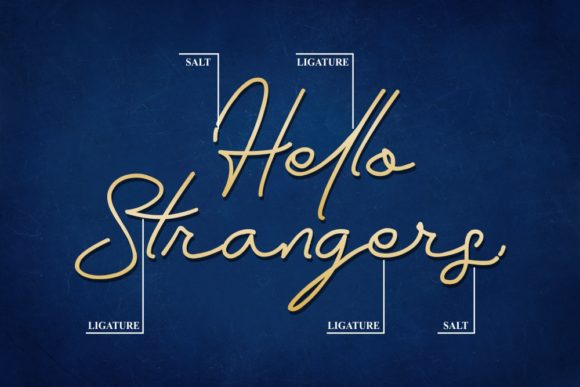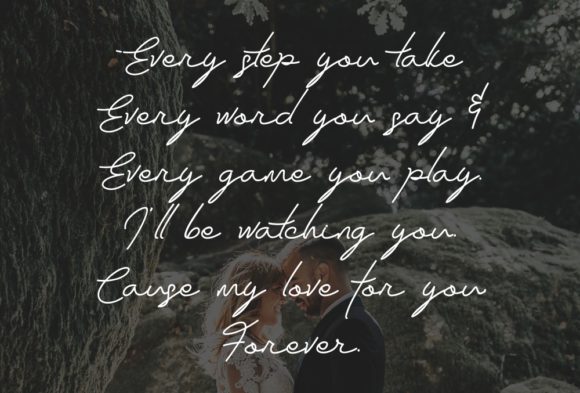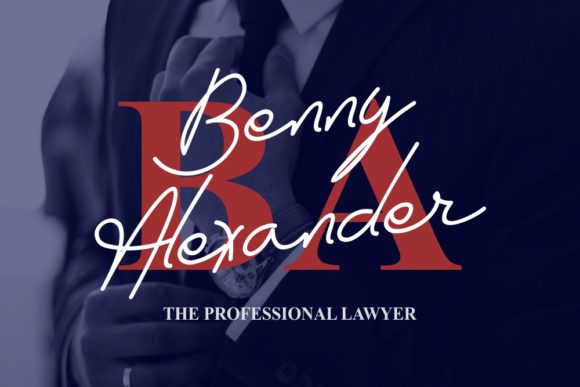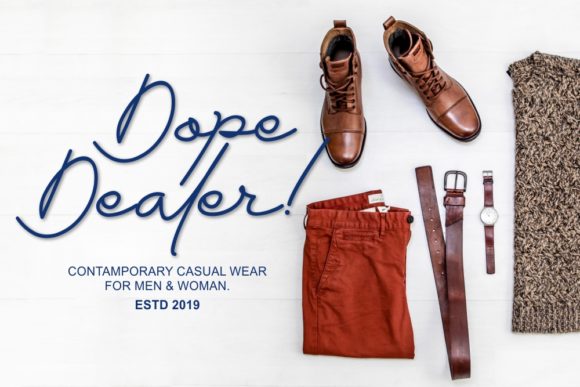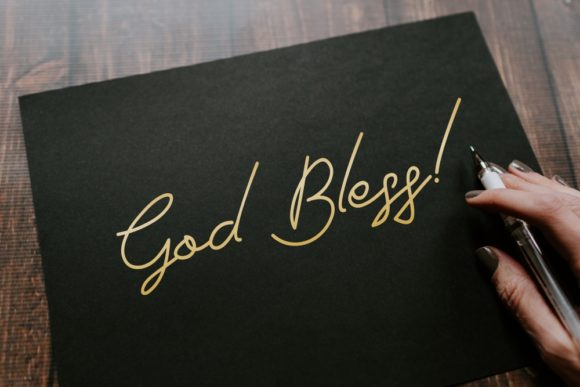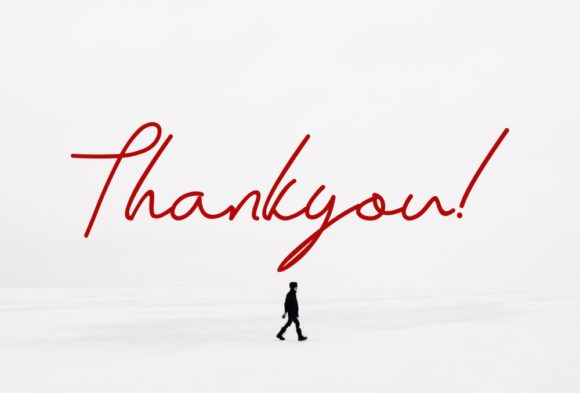
Raflesia Font
About Raflesia Font
Raflesia is a light and charming script font with a unique style. It will add that special touch to any creative idea!